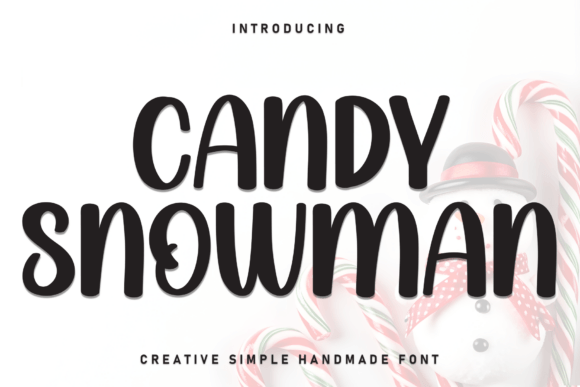
The Sweet Charm of Candy Snowman Font: A Designer’s Delight
I’ll never forget the time I was working on a wedding invitation project, and my client asked for a font that was “whimsical, yet elegant.” I scoured the internet, tried out countless fonts, but nothing seemed to fit the bill. That was until I stumbled upon Candy Snowman Font. It was love at first sight! 💕 The playful, handwritten display font instantly captured the essence of what I was looking for. In this article, I’ll share with you why Candy Snowman Font has become a staple in my design toolkit and how you can make the most of its charming features.
- ✨ Sweet and Friendly Vibe: Candy Snowman Font exudes a warm, friendly feel that’s perfect for wedding invitations, card designs, and other creative projects that require a touch of whimsy.
- ✅ Playful yet Refined: This font strikes the perfect balance between playfulness and sophistication, making it suitable for a wide range of design applications.
- 💫 Easy to Read: Despite its playful nature, Candy Snowman Font remains highly legible, even at smaller font sizes.
A Few Quirks to Keep in Mind
While Candy Snowman Font is an excellent choice for many projects, there are a few things to keep in mind:
- 🤔 Limited Use of All-Caps: While the font looks great in all-caps, some letters may appear a bit cramped or awkward. Use discretion when setting text in all-caps.
- ⚠️ Glyph Limitations: As with any font, there may be limitations to the number of glyphs or special characters available. Be sure to review the font’s character set before committing to a project.
- Experiment with OpenType features, such as stylistic alternates, to add visual interest to your text.
The Story Behind Candy Snowman Font
Candy Snowman Font was designed with the intention of capturing the magic of childhood wonder. Imagine a snowman brought to life, with a carrot nose and coal eyes, surrounded by swirling patterns of candy and snowflakes. The font’s creator aimed to bottle up that whimsical feeling and make it accessible to designers and crafters around the world.